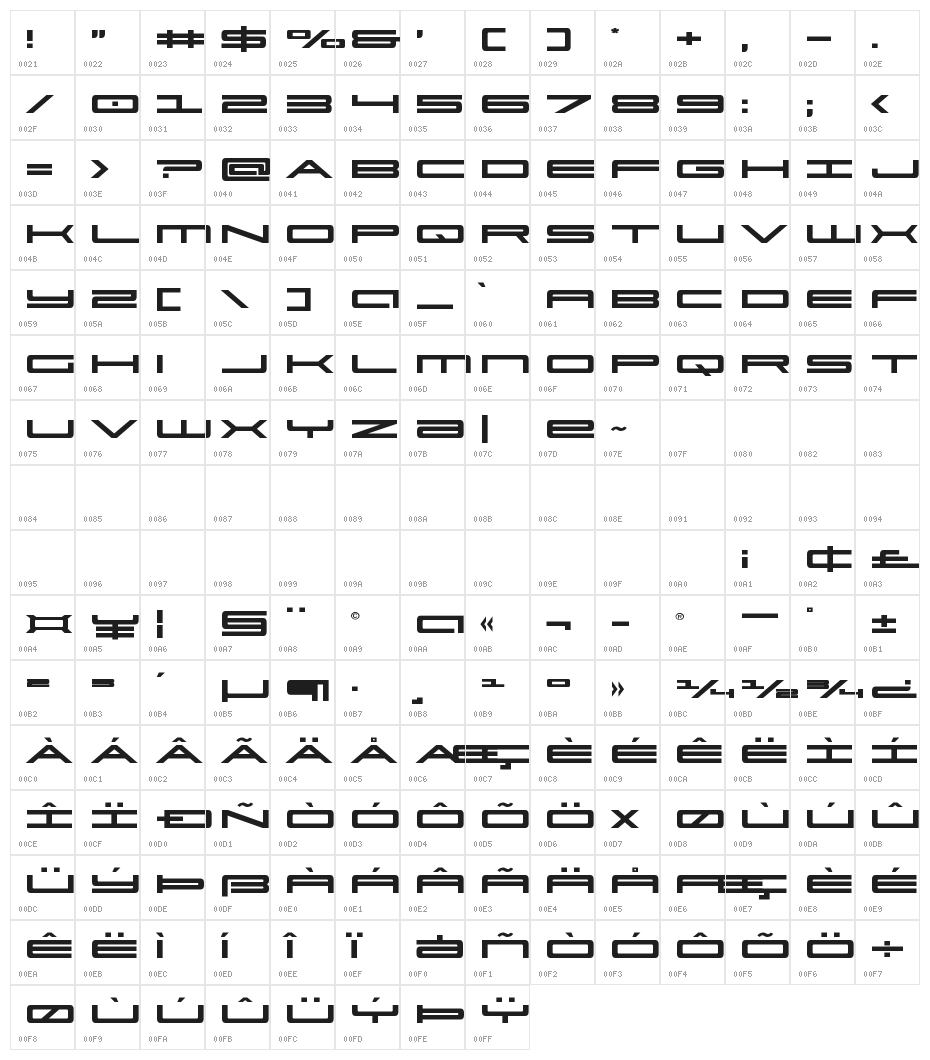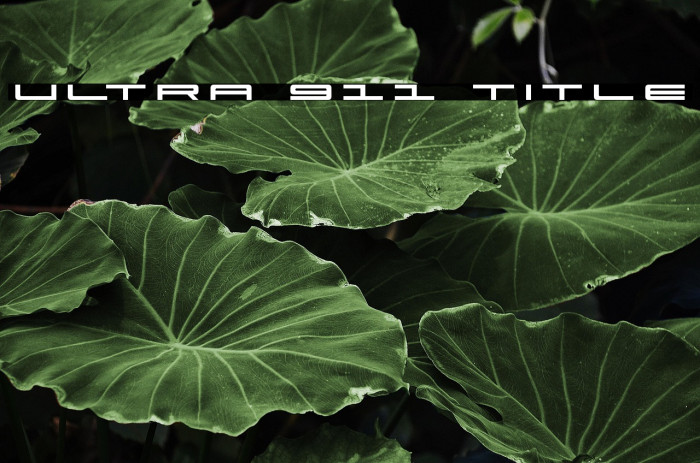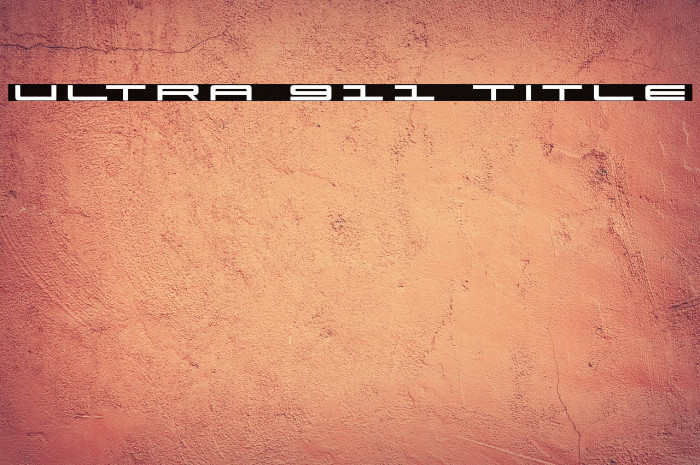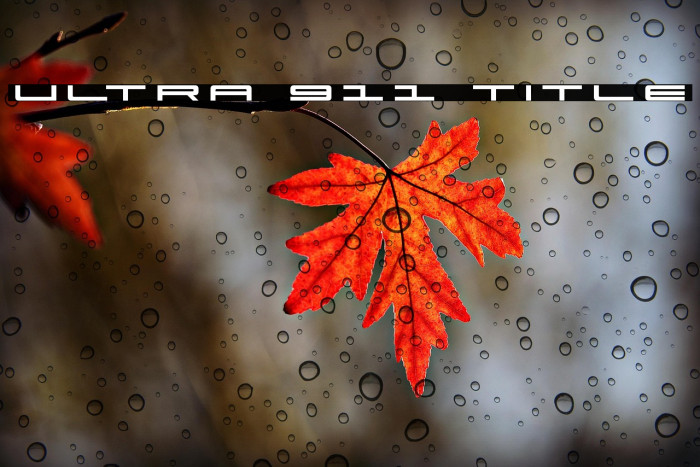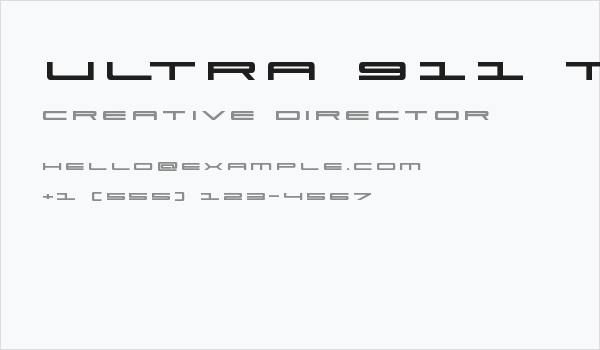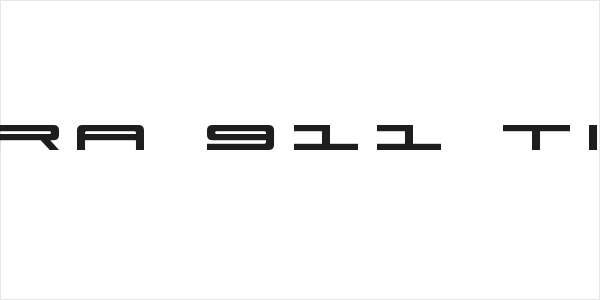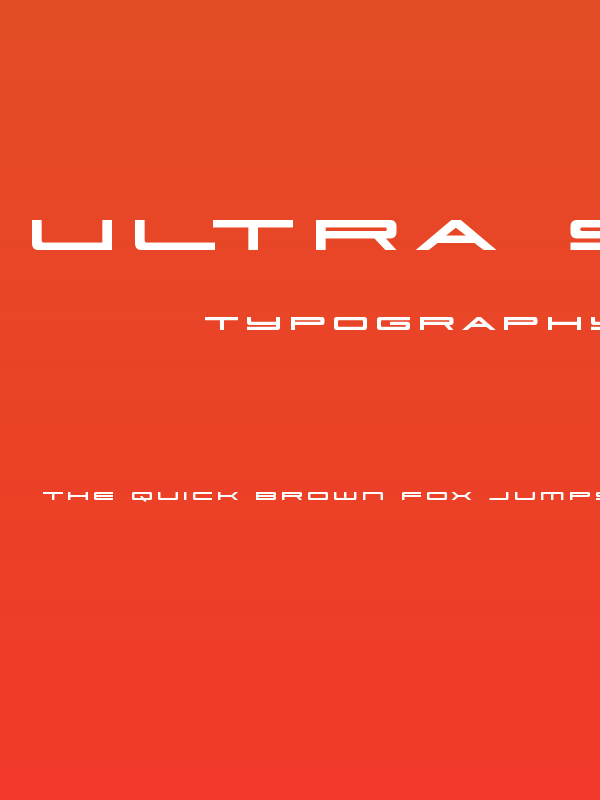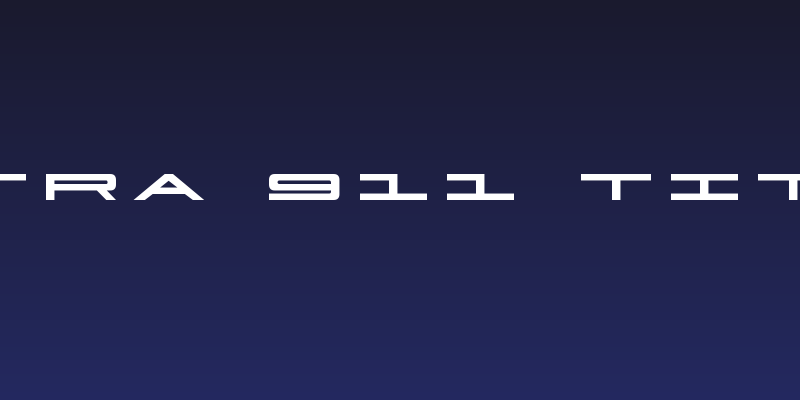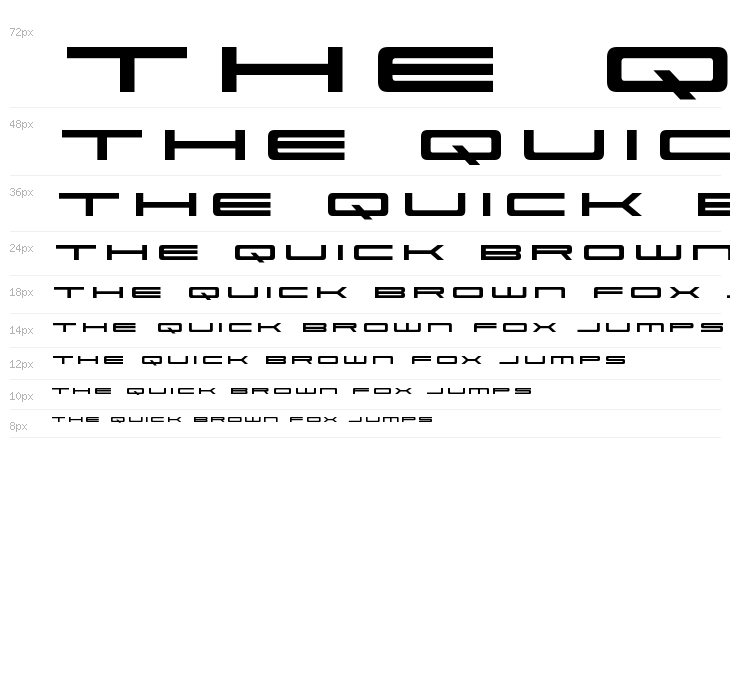
Ultra 911 Title Font
Ultra 911 Title Description
This font features a futuristic and geometric design, characterized by its sharp angles and clean lines. The uppercase and lowercase letters maintain a consistent style, with a modern and sleek appearance. The numerals are equally stylized, offering a cohesive look across all characters. The special characters are designed to match the overall aesthetic, providing a uniform and polished appearance. This font is ideal for projects that require a contemporary and tech-inspired look.